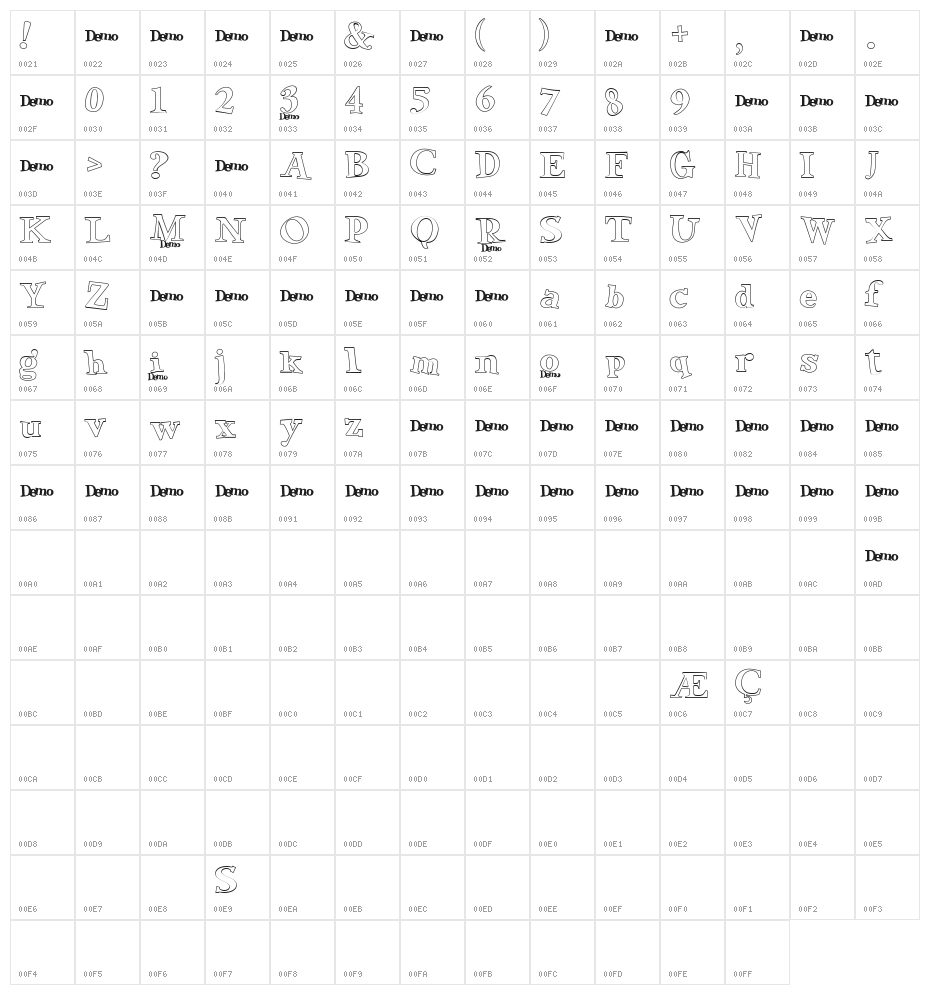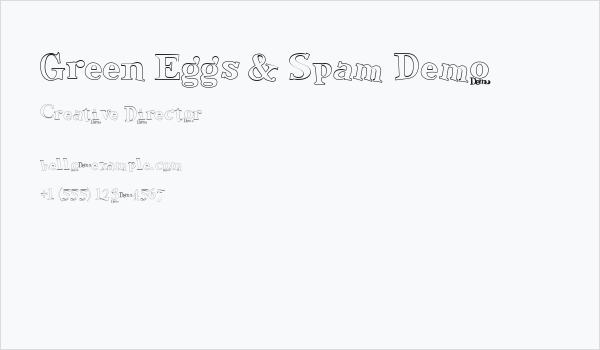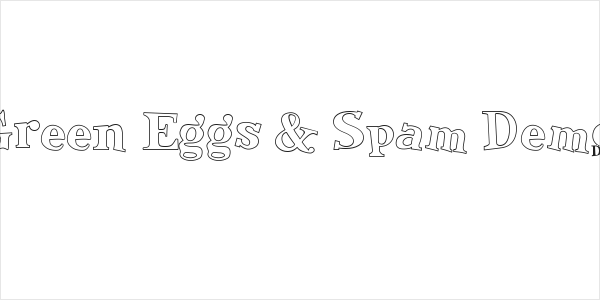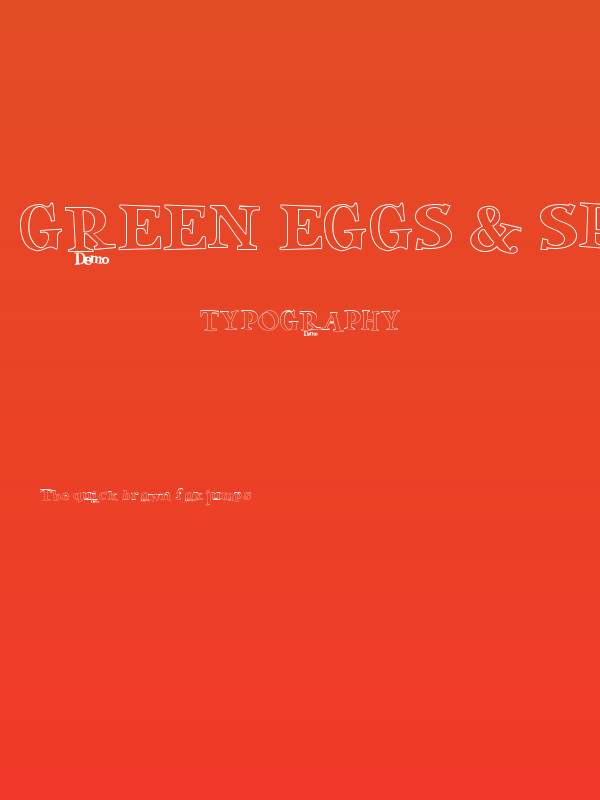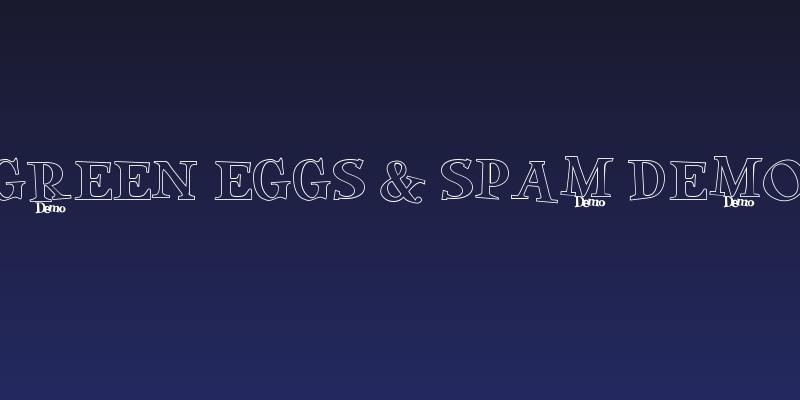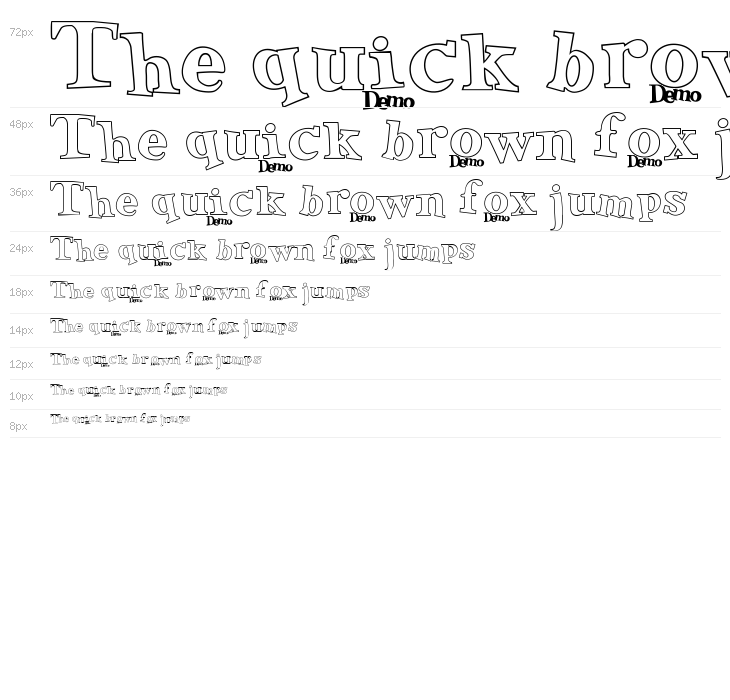
Green Eggs & Spam Demo Font
Green Eggs & Spam Demo Description
This font features a playful and whimsical design with a hand-drawn aesthetic. The characters have a unique outline style, giving them a cartoonish and lively appearance. Each letter is slightly irregular, adding to the charm and informal feel of the typeface. The uppercase and lowercase letters maintain a consistent style, with the uppercase being slightly more structured. Numbers and special characters follow the same playful theme, making this font suitable for creative and fun projects. The overall look is casual and approachable, perfect for designs that aim to convey a sense of fun and creativity.
Overall StyleWhimsical, Playful
Proposed ProjectsIdeal for children's books, playful branding, party invitations, and creative posters.